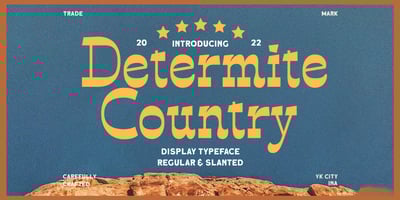
Determite Country
Determite Country font
Determite Country Font Family was designed by Hendry Juanda and published by Letterhend. Determite Country contains 2 styles and family package options. Introducing, Determite Country – A Western Display Typeface. The reverse contrast make this font looks different and stand out from the crowd. Suitable for design needs with a touch of classic western, especially in logo, and the other various formal forms such as invitations, labels, logos, magazines, books, greeting / wedding cards, packaging, fashion, make up, stationery, novels, labels or any type of advertising purpose.Features : lowercase and uppercase regular and slanted numbers and punctuation multilingual PUA encoded We highly recommend using a program that supports OpenType features and Glyphs panels like many of Adobe apps and Corel Draw, so you can see and access all Glyph variations